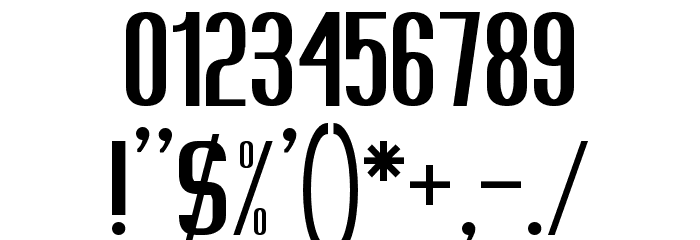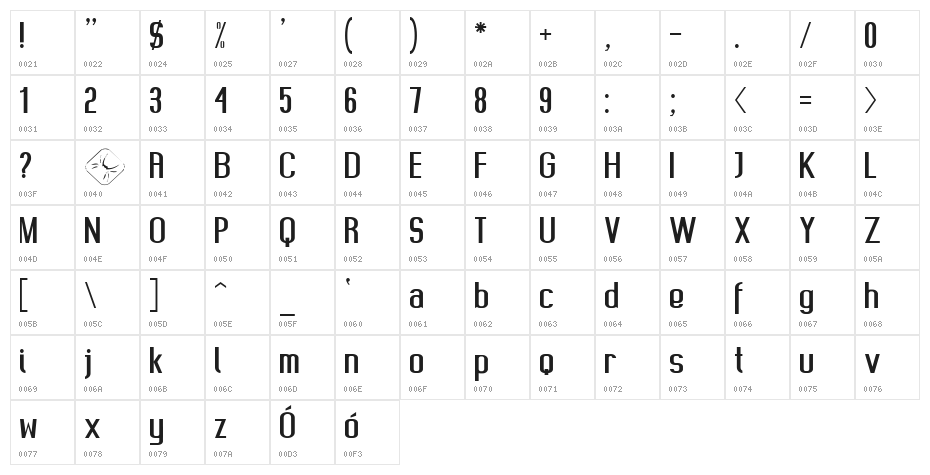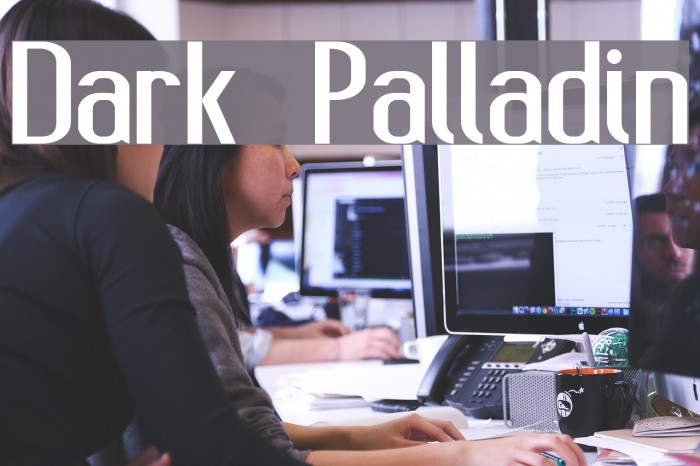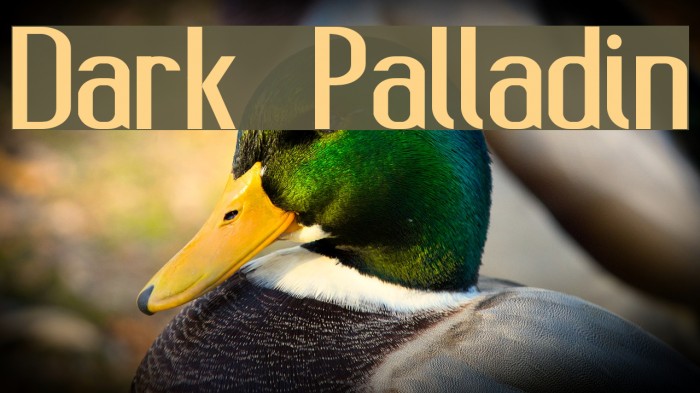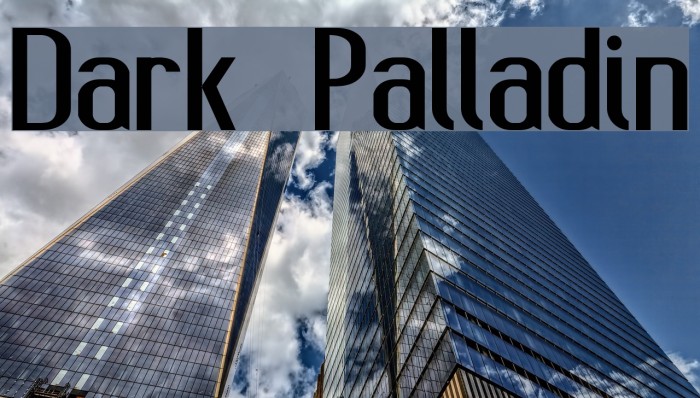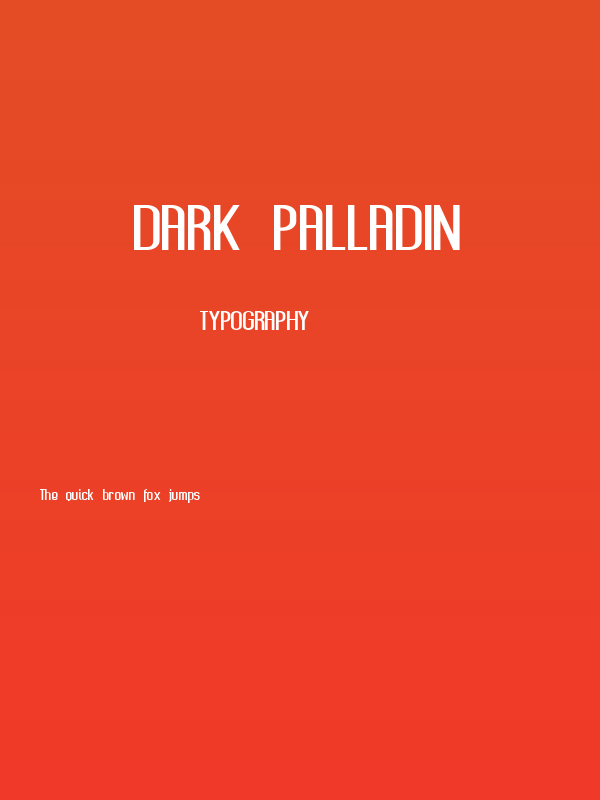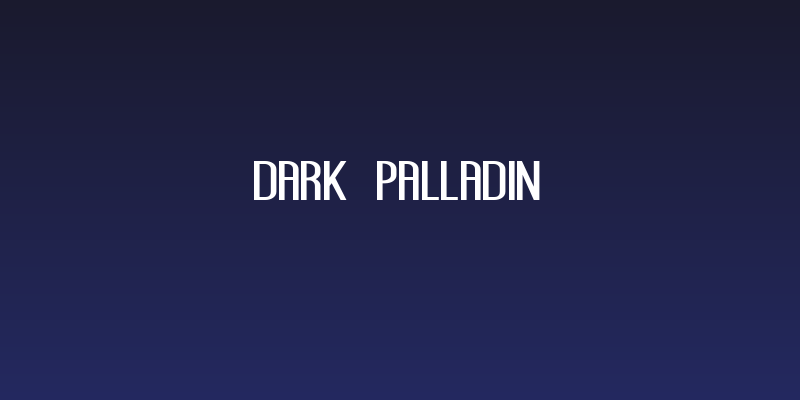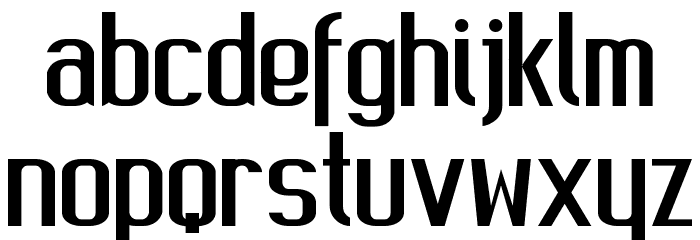
Dark Palladin Font
Dark Palladin Description
This font features a bold, geometric design with a modern and sleek appearance. The characters are tall and narrow, giving it a condensed look that is both striking and efficient in space usage. The uppercase letters are uniform in height, while the lowercase letters maintain a consistent style that complements the uppercase. The numerals are clear and distinct, ensuring readability. Special characters are designed with the same geometric precision, making them fit seamlessly with the rest of the font. The overall style is contemporary, making it suitable for a variety of modern design applications.
| Proposed Projects | Ideal for modern branding, advertising, posters, and digital media where a bold statement is needed. |